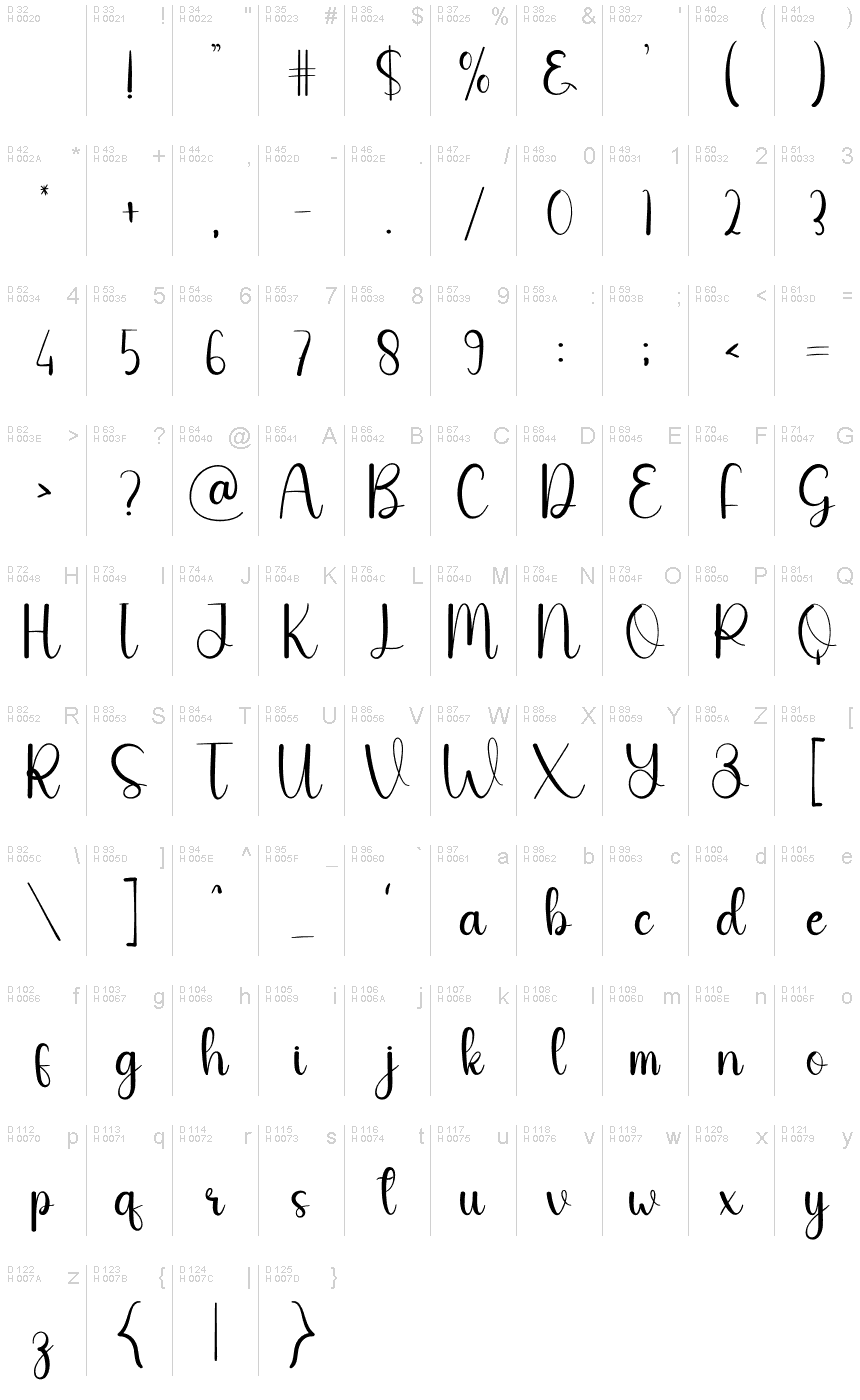
Agenda
Agenda, crafted by the hands of Scratchones, speaks to the connoisseur of subtlety and personal touch in typography. With its semi-light weight, this handwritten font marries casual charm with an air of sophistication. The gentle flow of its characters mimics the elegant strokes of a fine pen gliding across a page—each letter rendered with a delicate balance that promises legibility while maintaining an inviting, approachable aesthetic.
The distinctive loops and curves inherent in Agenda suggest a versatility that thrives across various creative canvases. From heartfelt invitations to boutique branding, or even as the narrative voice in storybook illustrations, Agenda offers designers a font that is not only visually appealing but also imbued with personality. Its handwritten style lends authenticity to projects aiming for an intimate and handcrafted feel, ensuring that each application resonates with warmth and character.
Whether used in digital designs or print, Agenda stands out as an embodiment of artistic flair—a testament to those who appreciate fonts that are as expressive as they are exquisite.